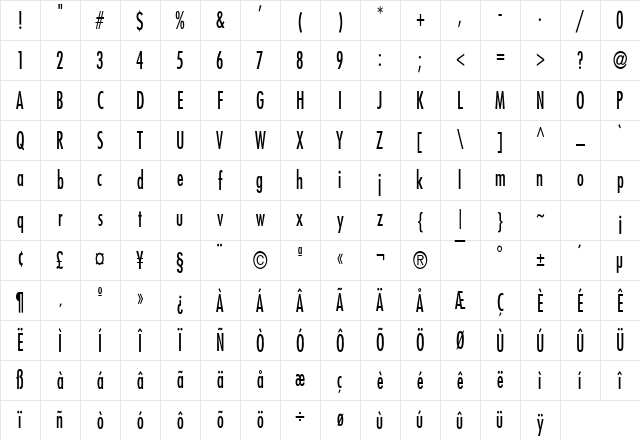
Design Context for Fuji Thin
Fuji Thin is a composed and adaptable typeface that performs quietly and consistently across a wide range of design contexts. Its slender proportions lend an understated elegance to any composition.